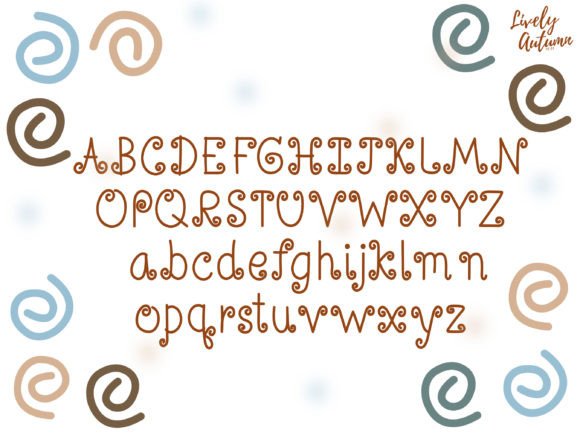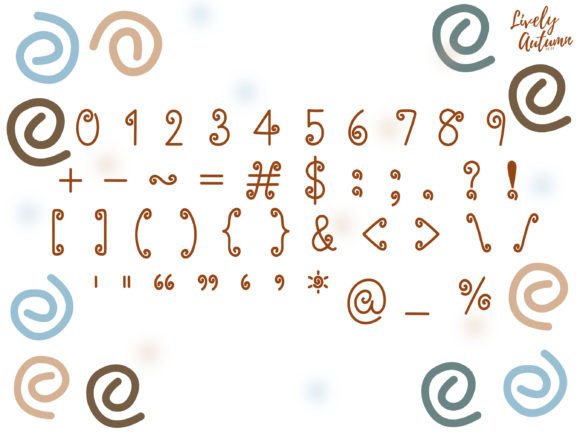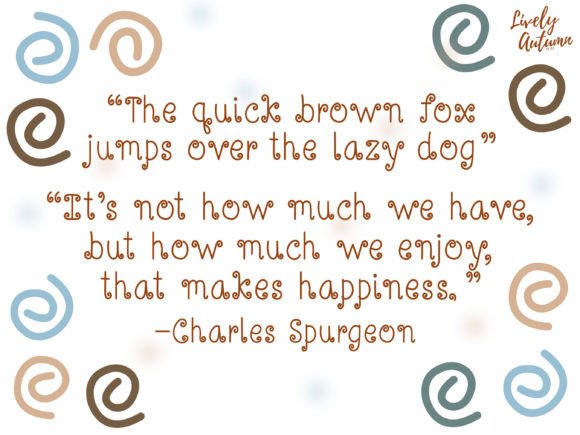
Introduction to Rolly Font
Rolly Font is a decorative handwriting font that has a spiral roll decorated at the head or tail of the letters.
Perfect for your personal projects and various projects From invitations to posters, social media graphics, journals, and much more.